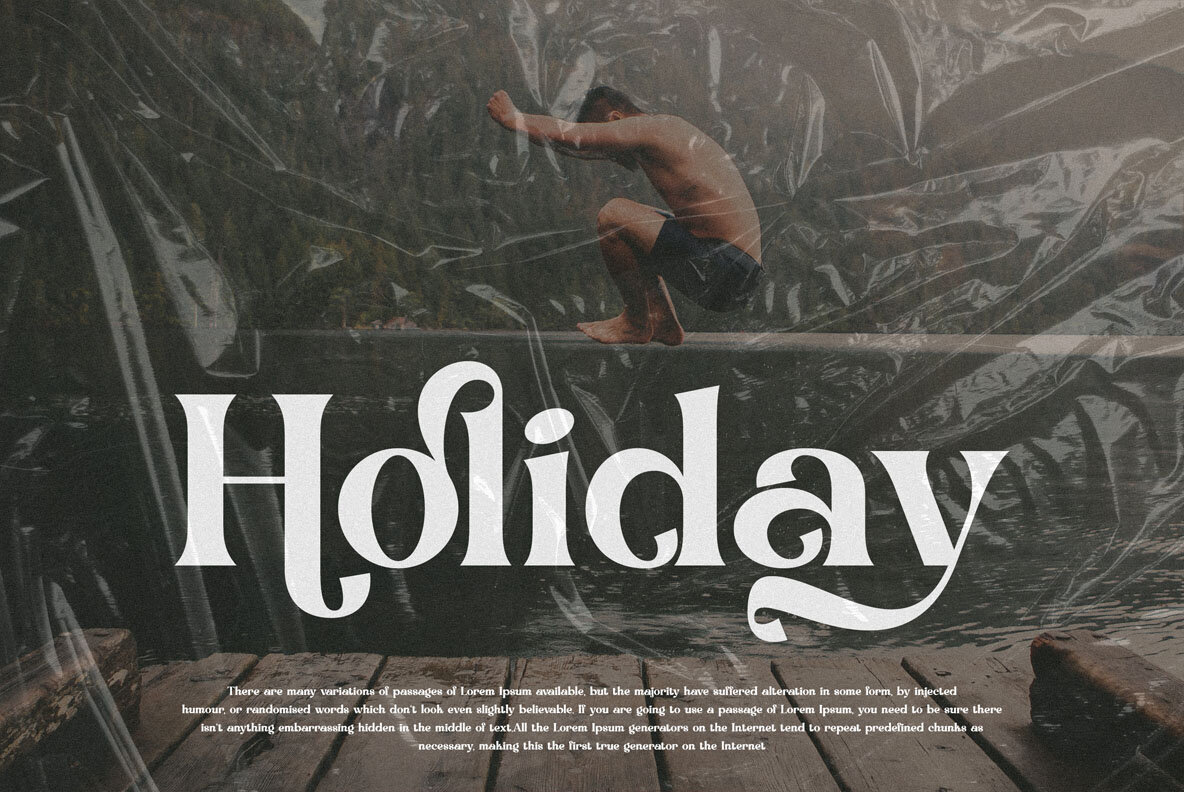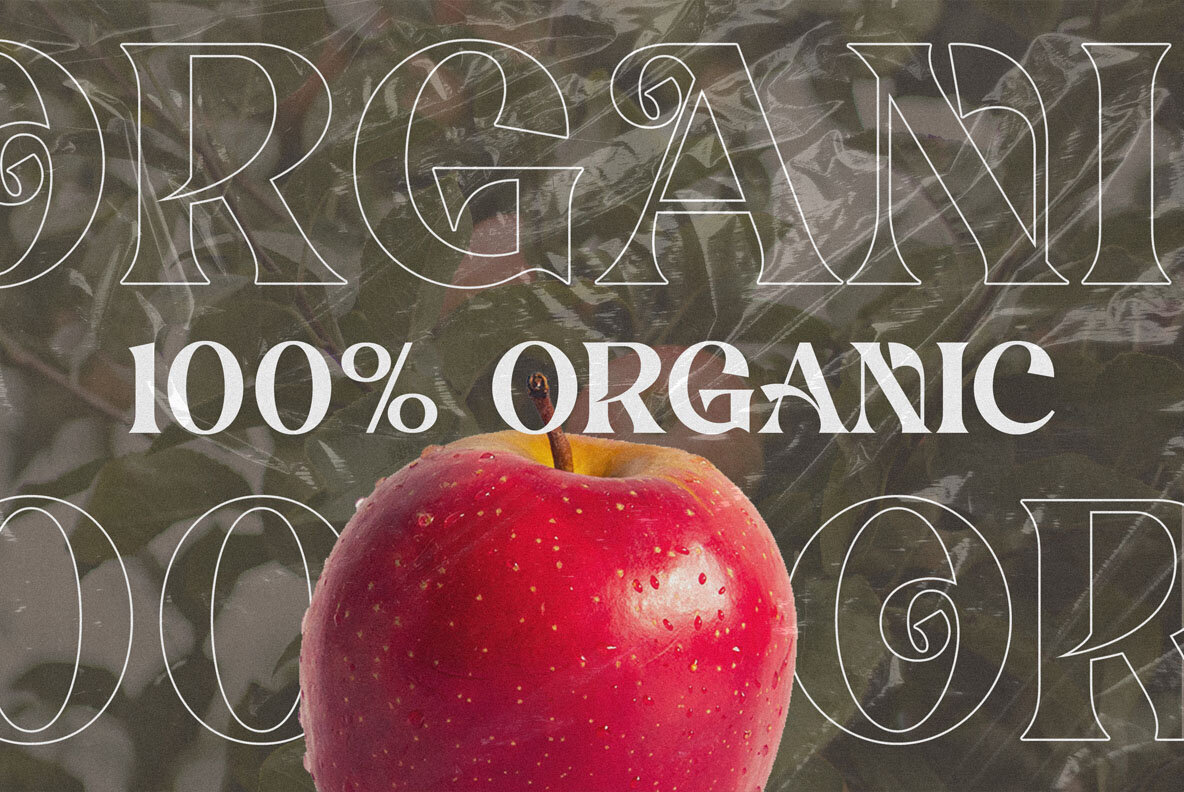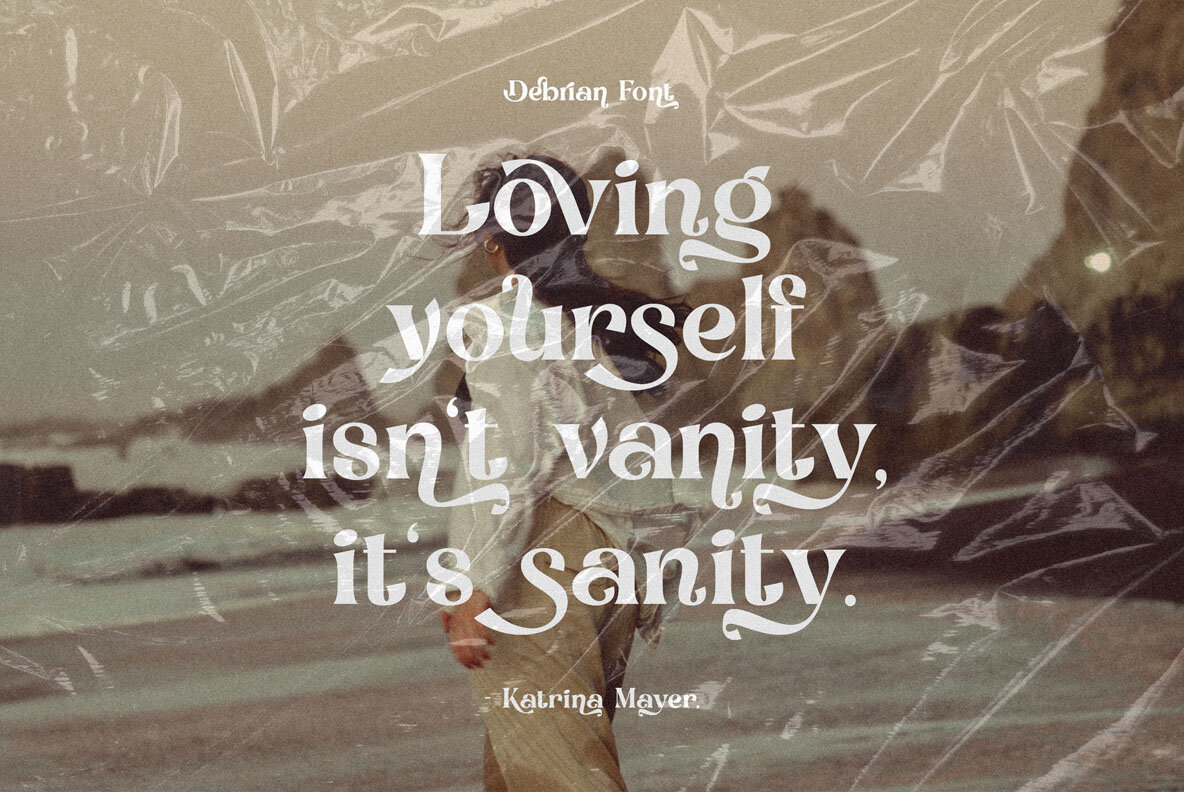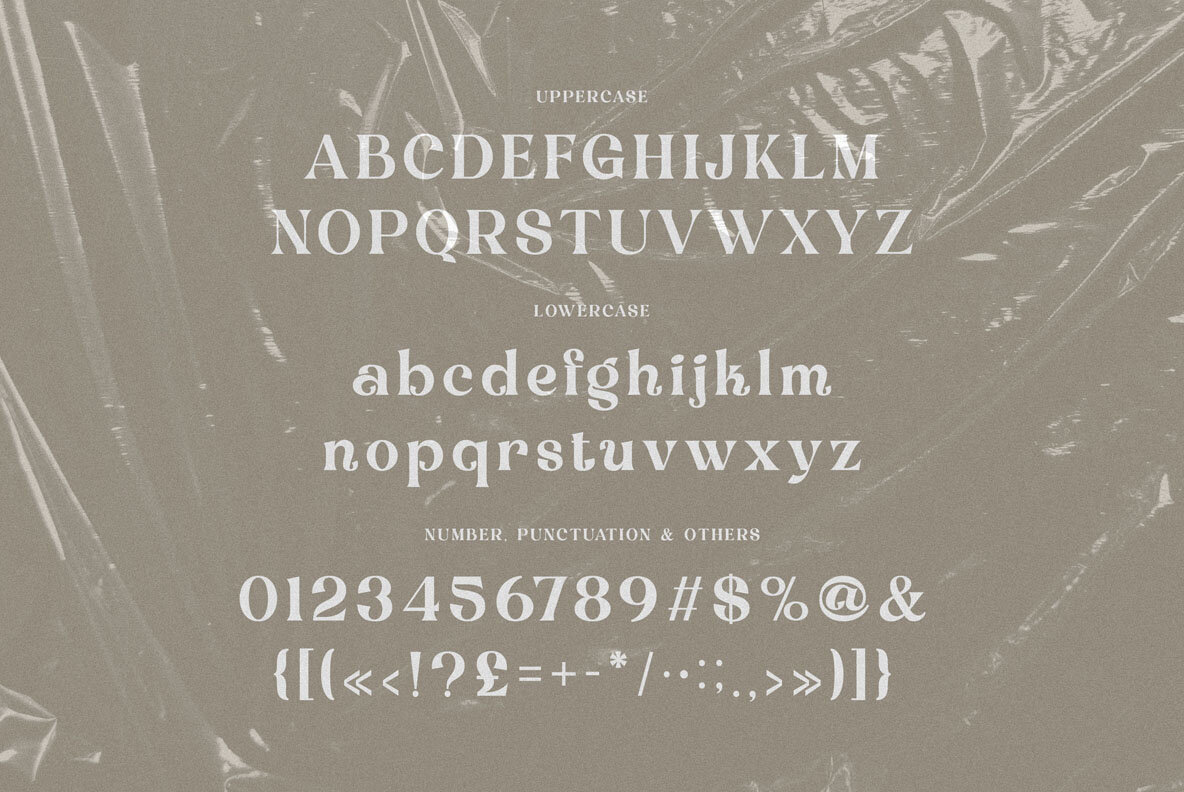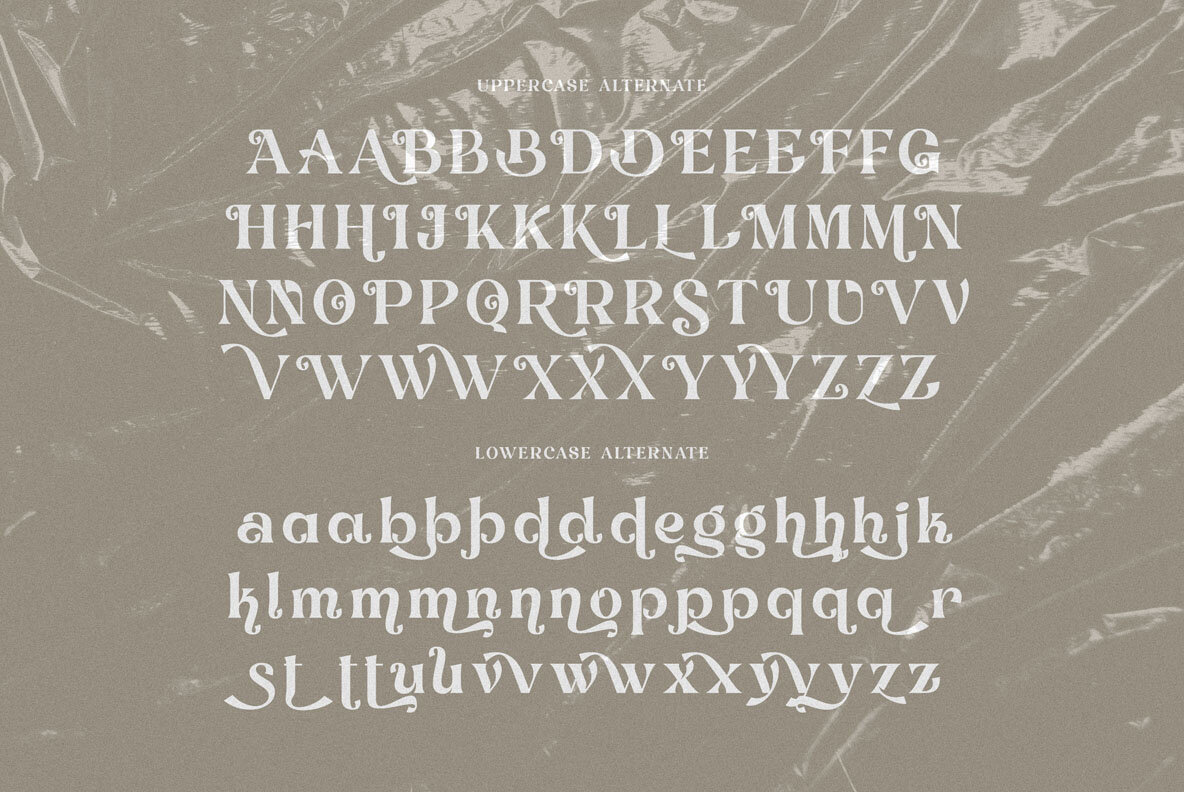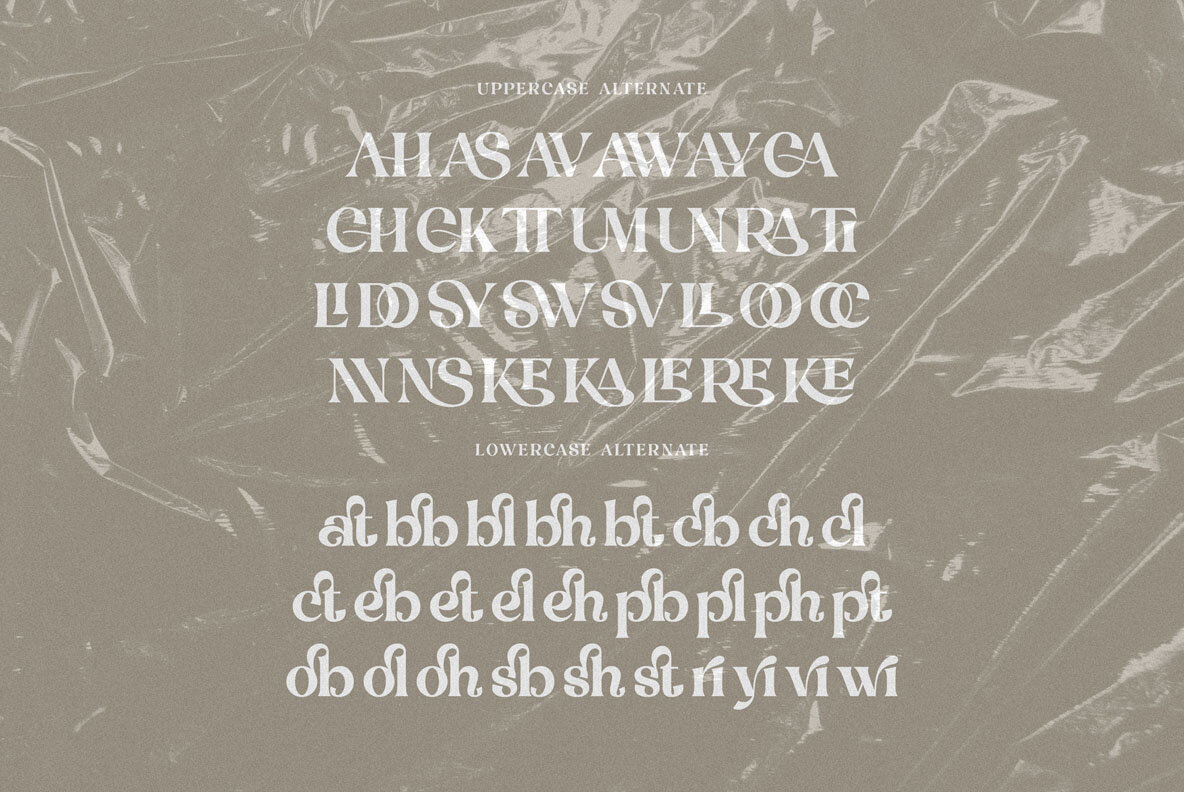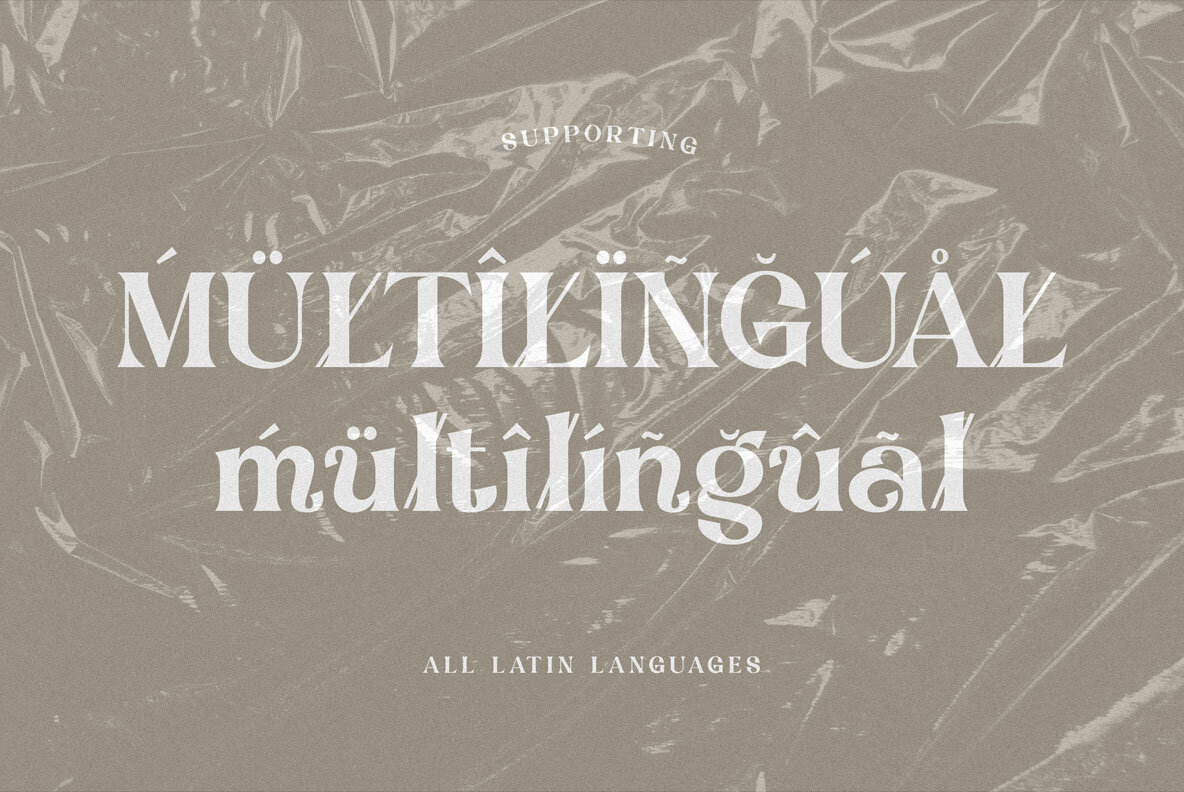
Debrian Font
Debrian
Introducing Debrian, a versatile and sophisticated serif font that effortlessly combines the trendy, elegant, luxury, retro, and modern styles. Perfect for your latest creative projects, Debrian's distinctive design is ideal for modern branding initiatives that require a touch of class and originality. The variety of alternates and ligatures ensures you can create one-of-a-kind logo designs or website headers with ease. Debrian features: With its unique blend of styles, Debrian is an exceptional choice for designers looking to make a statement. Its timeless elegance and contemporary feel make it perfect for a wide range of applications, ensuring your designs stand out from the crowd.